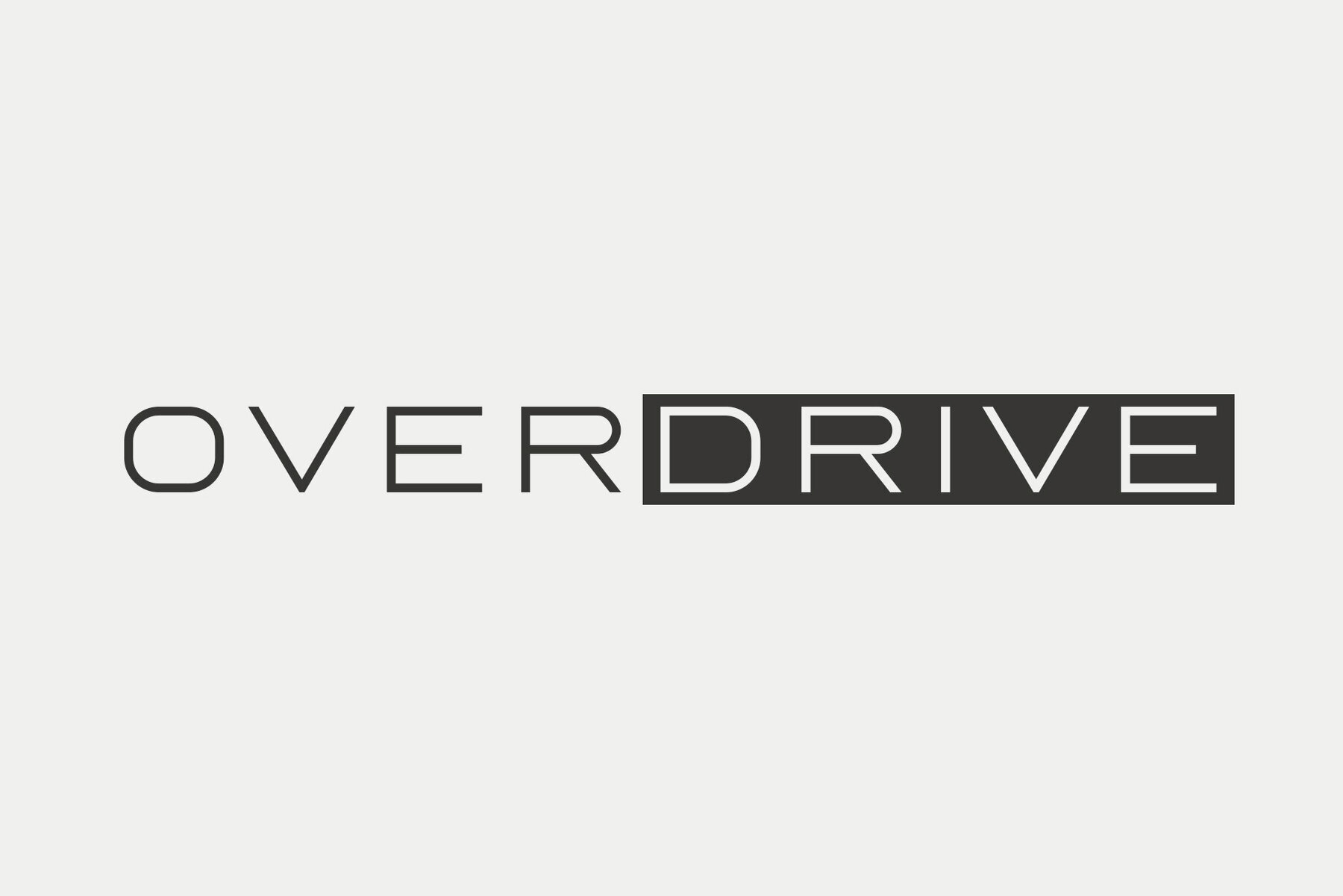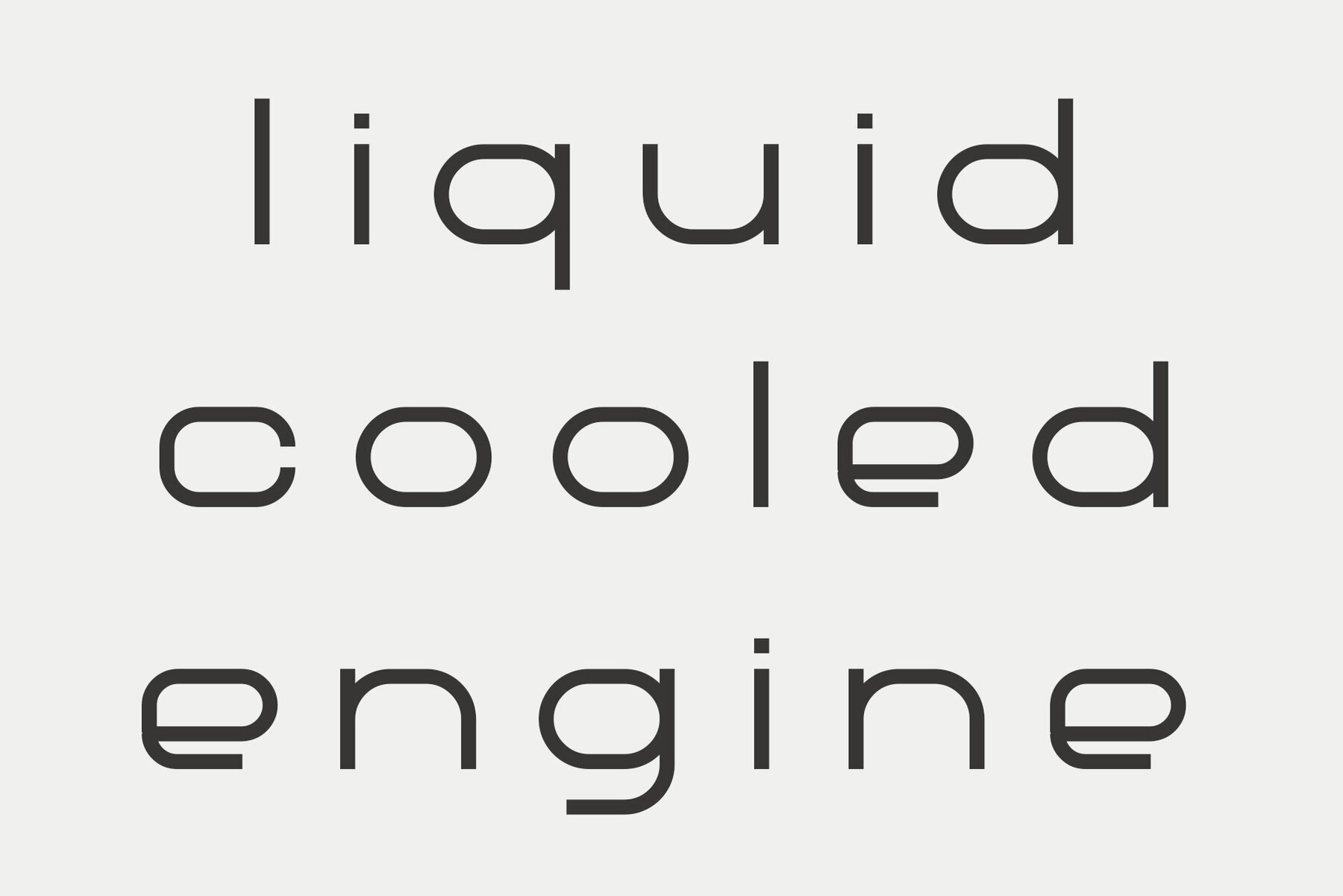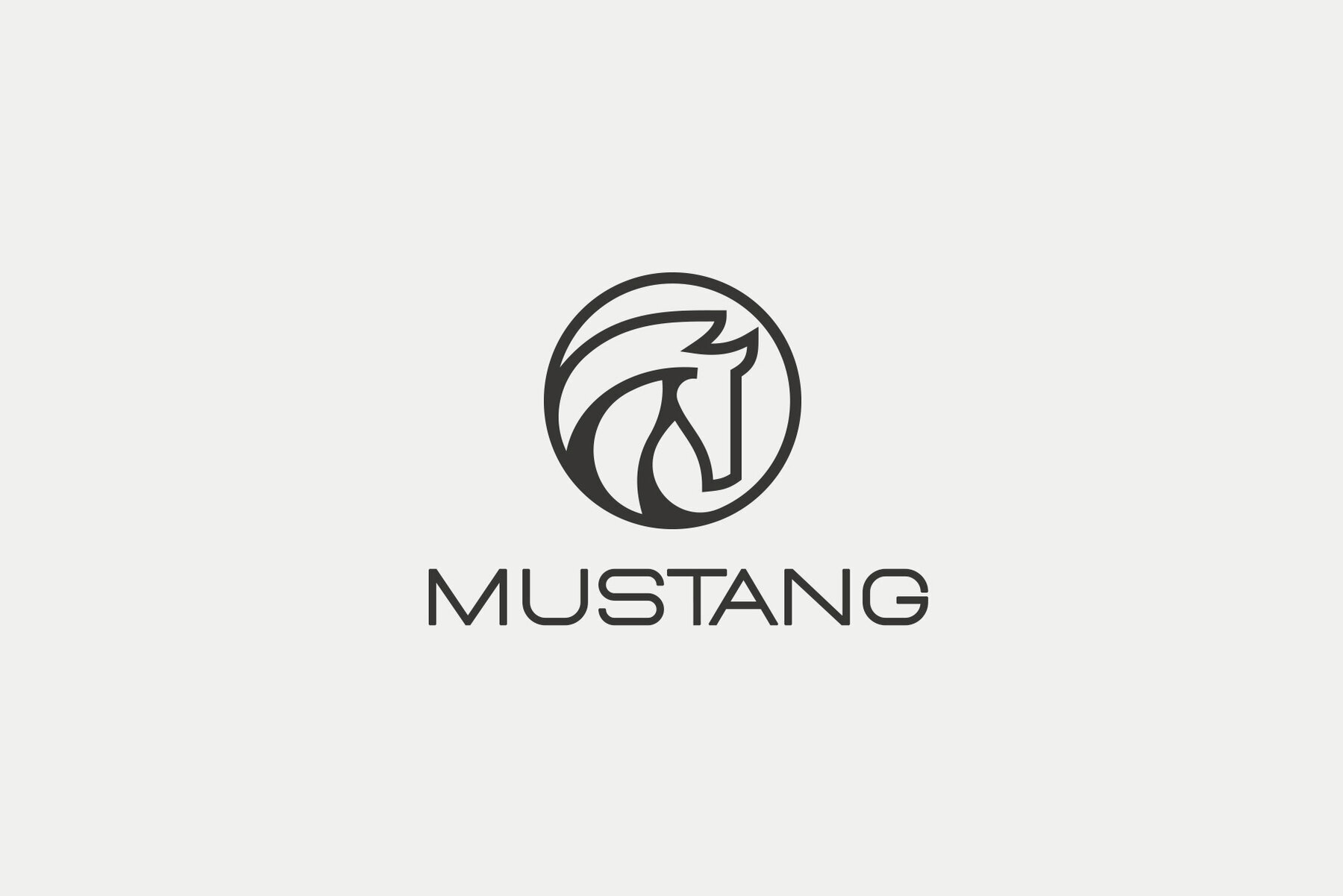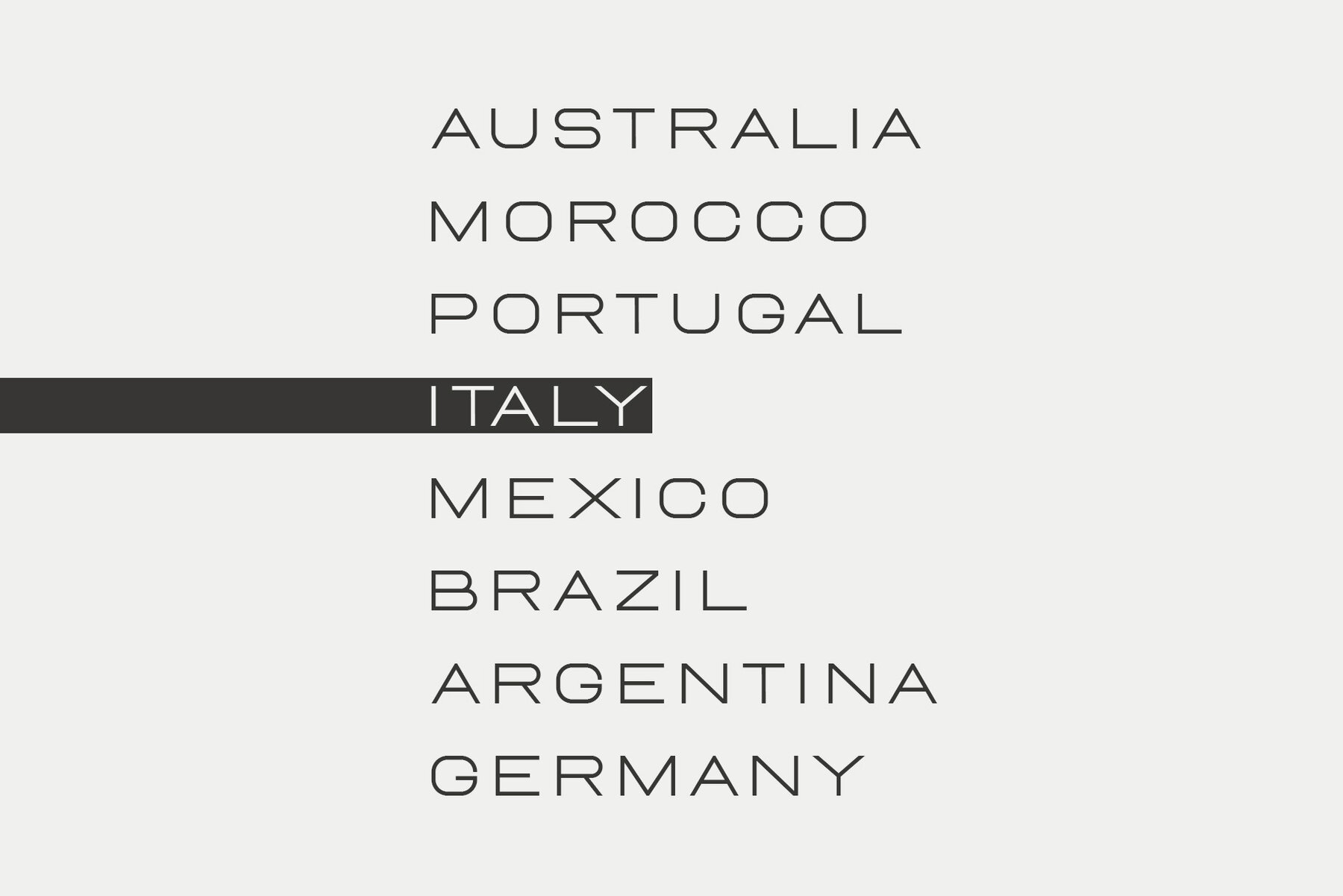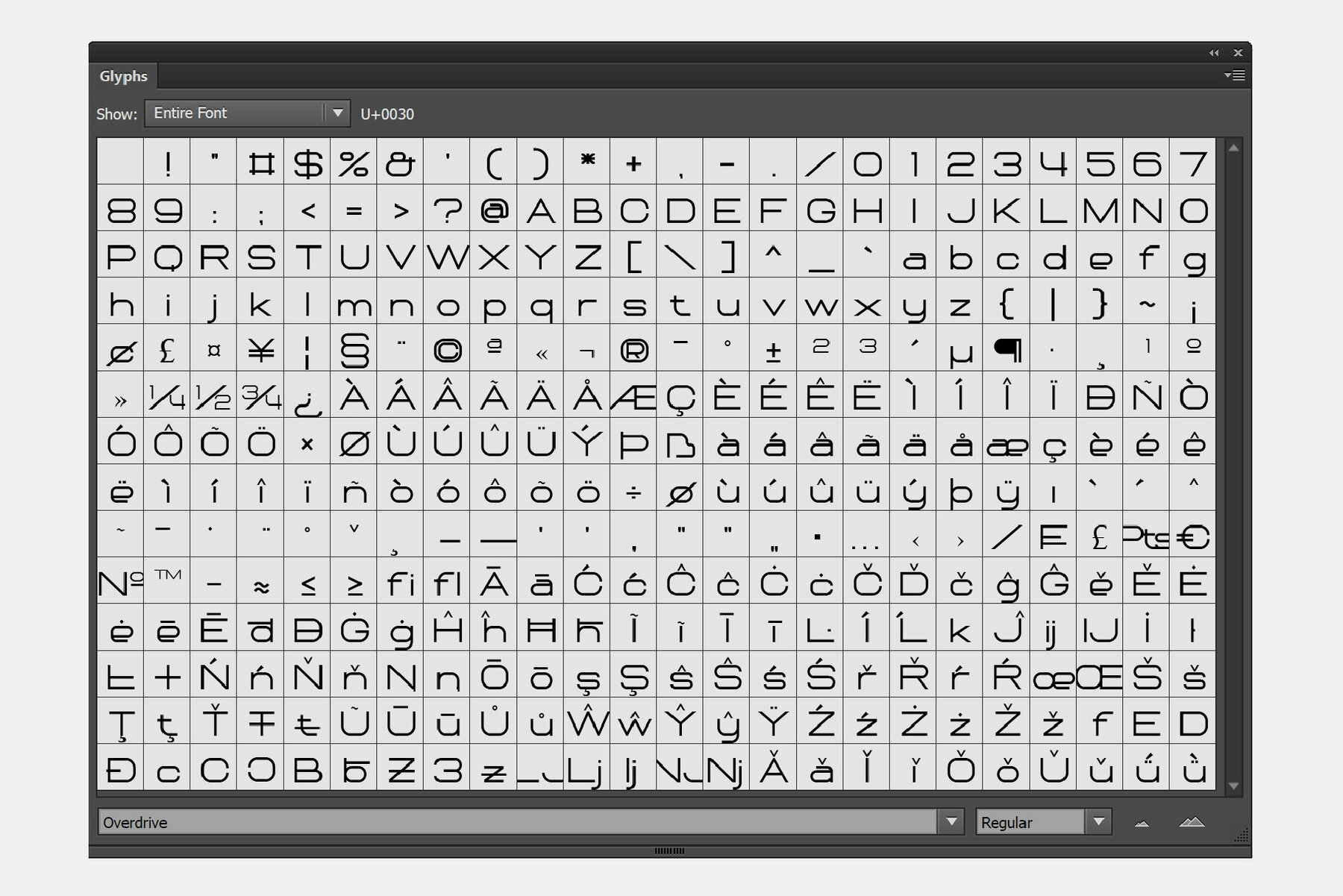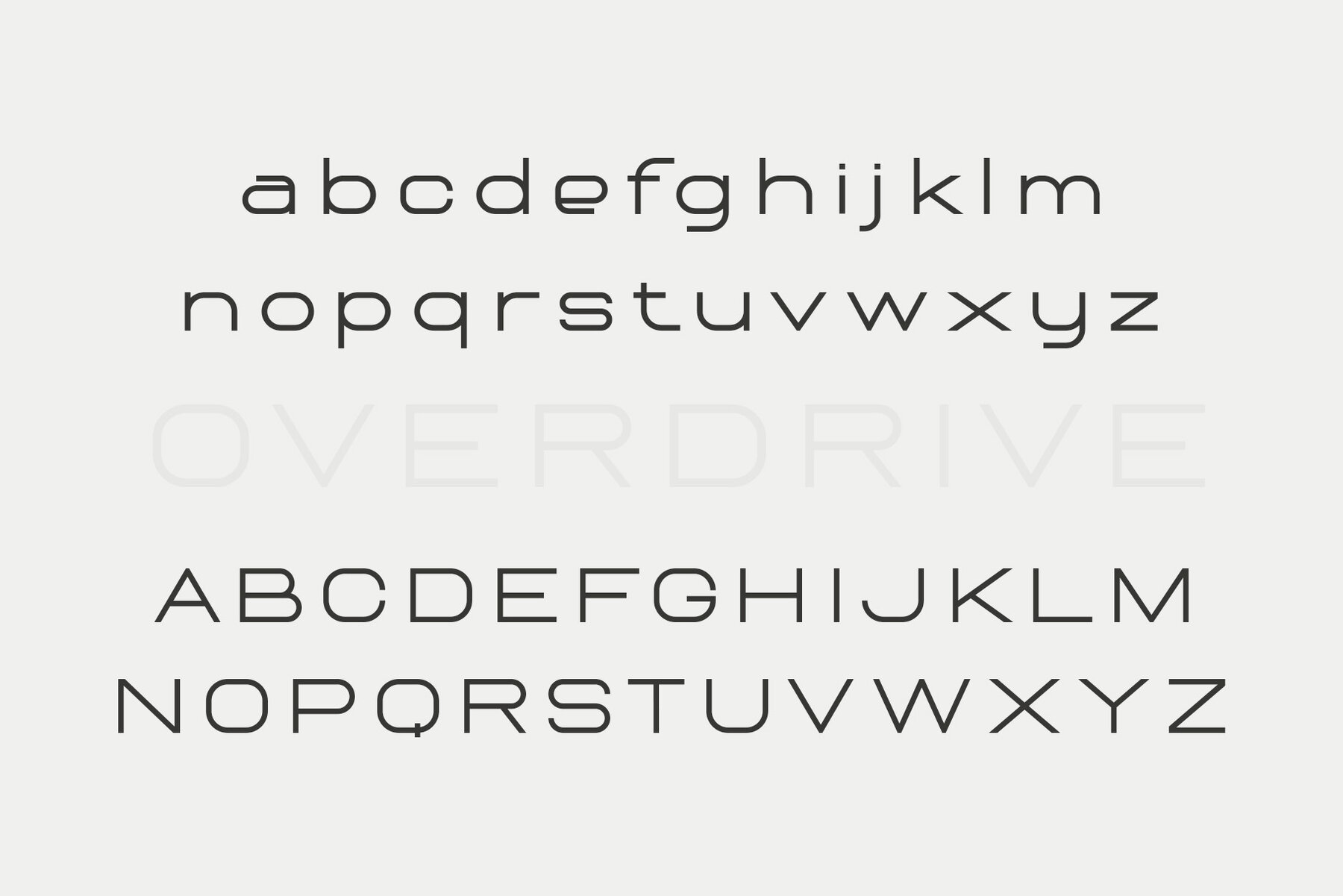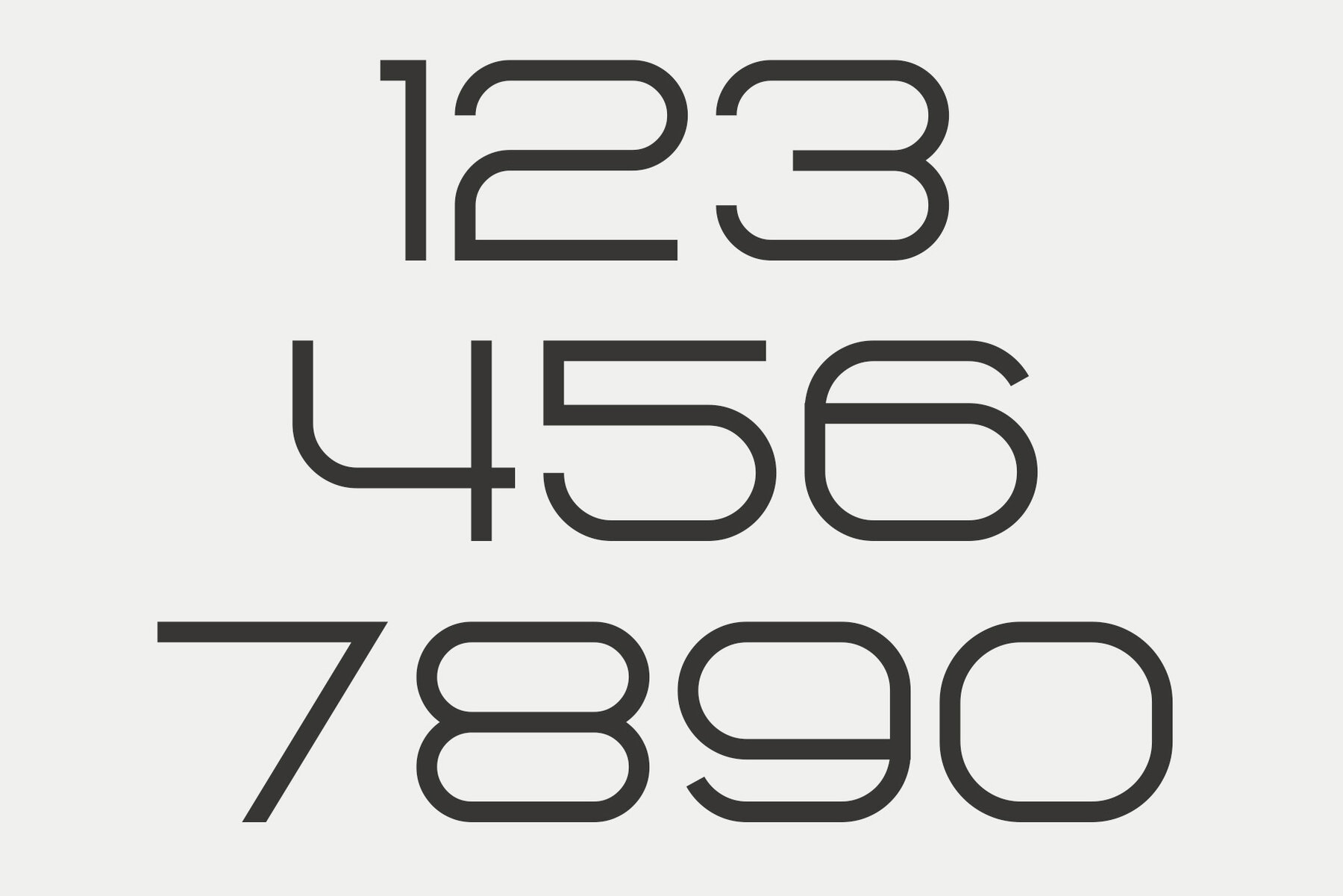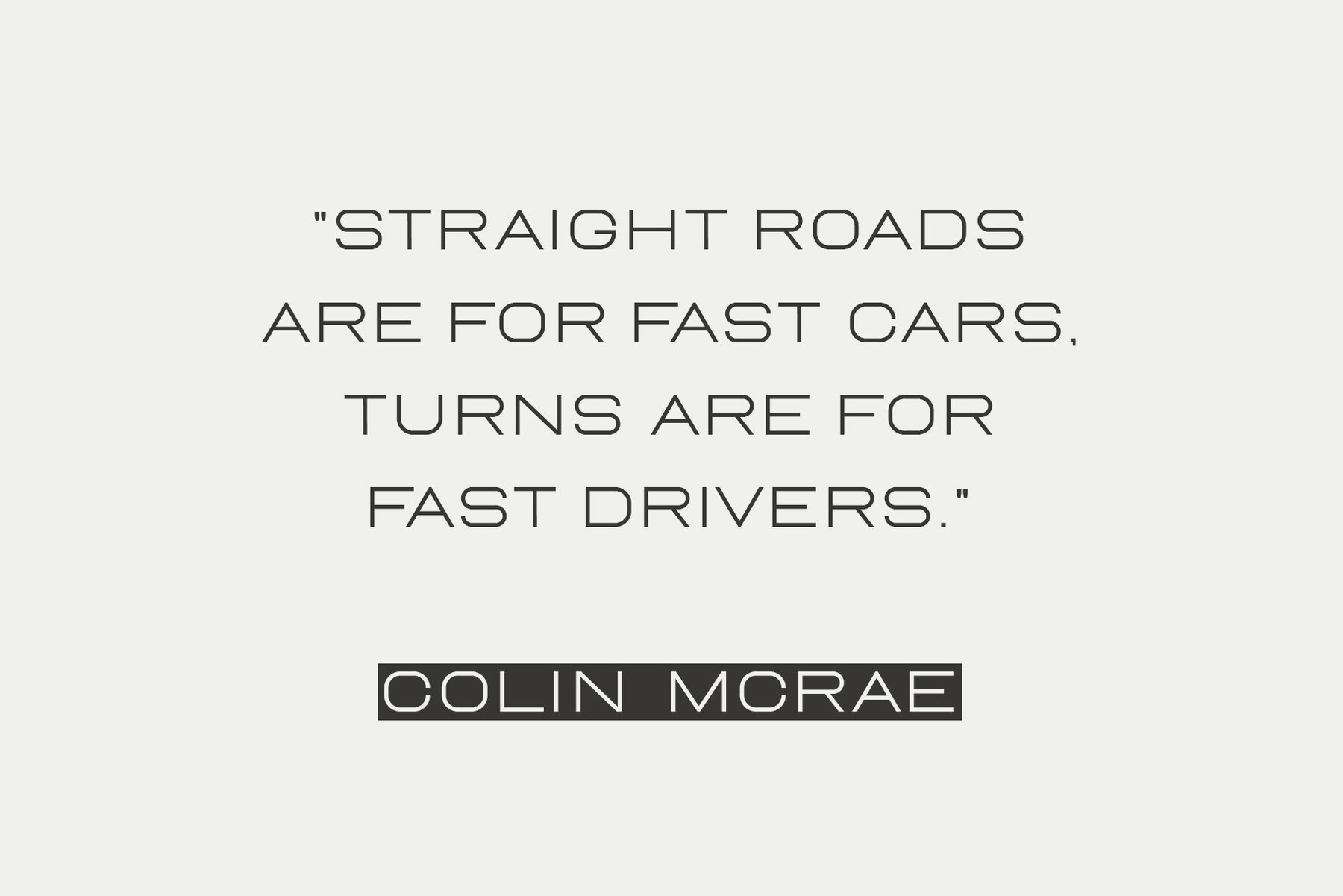
Overdrive Font
Overdrive Regular
This sans-serif font presents a modern, clean, and minimalist style, making it perfect for professional and corporate branding projects. Its geometric shapes and neutral appearance ensure high legibility, making it a great match for headlines, digital and web design, UI/UX design, advertising materials, and publishing projects. The font's simplicity also works well for titles and any design that requires a sleek and unobtrusive typeface.